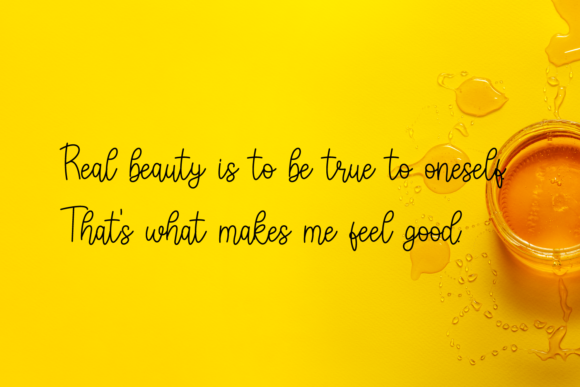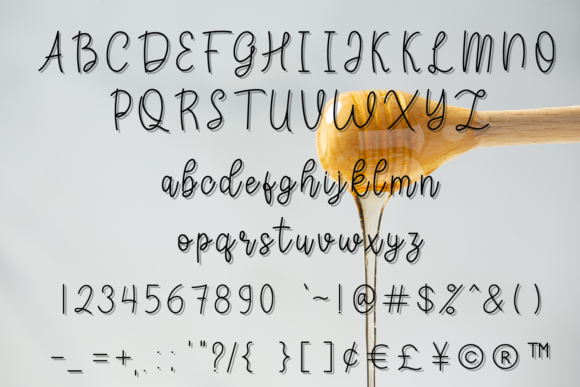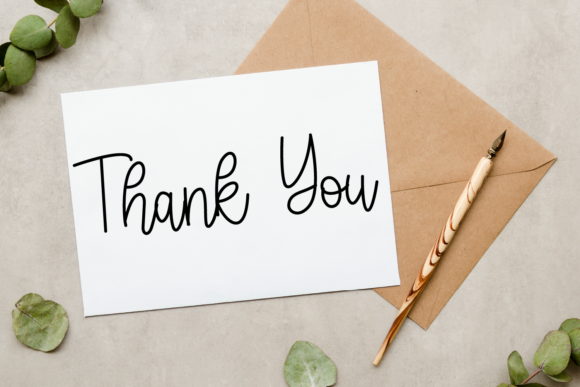
About Beautiful Honey Font
Beautiful Honey is a sweet, flowing and thin script font. Featuring characters that dance along the baseline, this font will add a luxury spark to any design project that you wish to create!